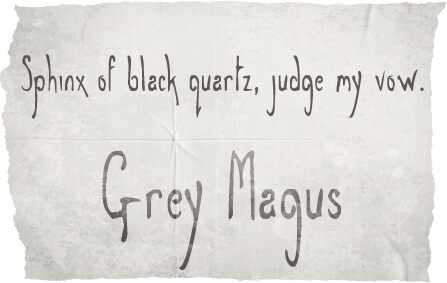
Grey Magus
Grey Magus font by Conna Stevenson is a free handwritten typeface with a moody, spellbook feel. Tall, tapering strokes and sudden hooks give the letters a shaky, wand-drawn quality, as if they’ve been scratched into old parchment with inky haste. The spacing feels loose and slightly off-kilter, which adds to its eerie, enchanted character rather than trying to look neat or cute.
Using Grey Magus, your titles instantly lean into dark fantasy or occult storytelling. It shines on book covers, witchy zines, RPG character sheets, escape-room clues, Halloween posters, and band merch with a mystical edge. This free font works best large for headlines; pair it with a clean, understated sans serif for body copy so the strange, spidery forms stay readable and dramatic.
The final version includes most accented characters. The designer will not add additional accented characters unless there are many requests for specific characters.
In 2015 the designer noted a possible future update that could add more characters and smoother shapes if a suitable free or low-cost font editor/creator can be found; Cyrillic characters may be added if feasible.